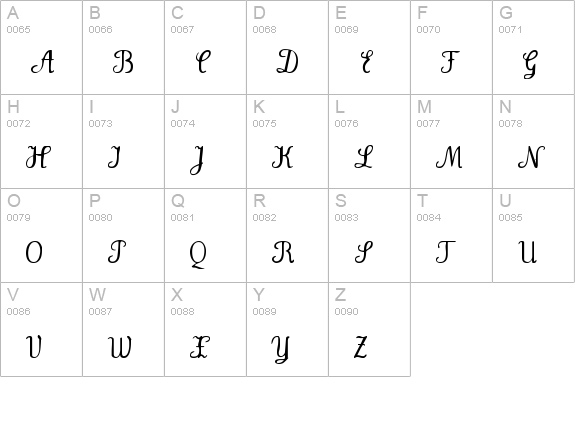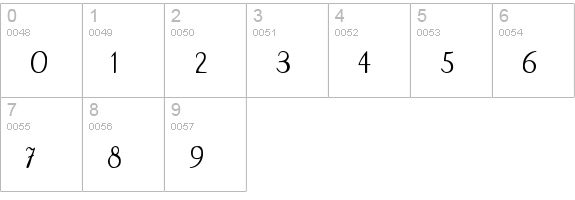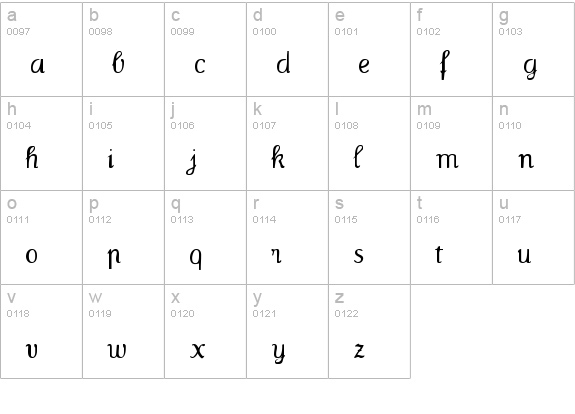
Wenceslas Font Details
Introducing Wenceslas, a stunning font that effortlessly combines elegance, versatility, and timeless appeal. This extraordinary typeface encapsulates a perfect blend of classic charm and modern simplicity, making it a must-have for designers and creatives alike. Wenceslas stands out with its clean lines, refined curves, and impeccable letterforms, exuding an air of sophistication and refinement. With its balanced proportions and graceful strokes, this font effortlessly captures attention and conveys a sense of professionalism and creativity. One of the most remarkable aspects of Wenceslas is that it is available for free download at FontsMarket.com. This means that anyone can access and utilize this exquisite font without any financial constraints, making it the ideal choice for both personal and commercial projects. Whether you're designing a logo, crafting a captivating headline, or beautifying your social media posts, Wenceslas offers a wide range of weights and styles to suit every design need. From its sleek and slender thin variant to its bold and impactful heavy variant, this font provides endless possibilities for creative expression. Not only does Wenceslas excel in its visual appeal, but it also boasts exceptional legibility, ensuring that your message is conveyed effortlessly to your audience. Its meticulously crafted letterforms and generous spacing allow for easy reading in any context, ensuring that your words are always clear and impactful. Furthermore, Wenceslas is compatible with various design software and can be seamlessly integrated into your creative workflow. Whether you're a seasoned designer or just starting out, this font is incredibly user-friendly and versatile, making it a joy to work with. In conclusion, Wenceslas is a timeless and enchanting font that effortlessly combines elegance, versatility, and accessibility. Its free availability for download at FontsMarket.com ensures that everyone can enjoy the beauty and functionality of this remarkable typeface. So why wait? Download Wenceslas today and elevate your designs to new heights of excellence.